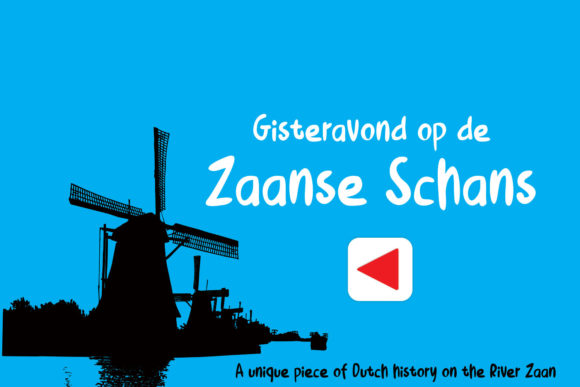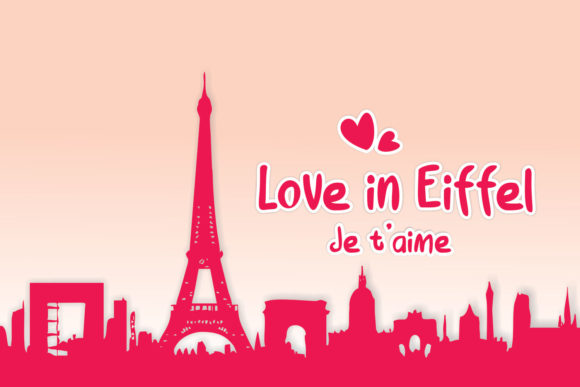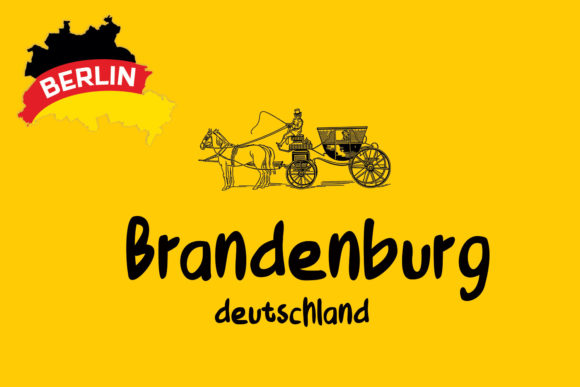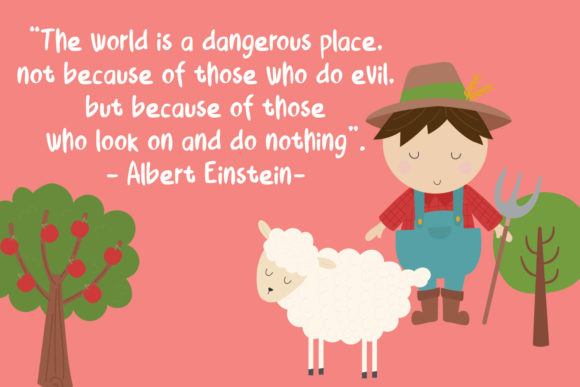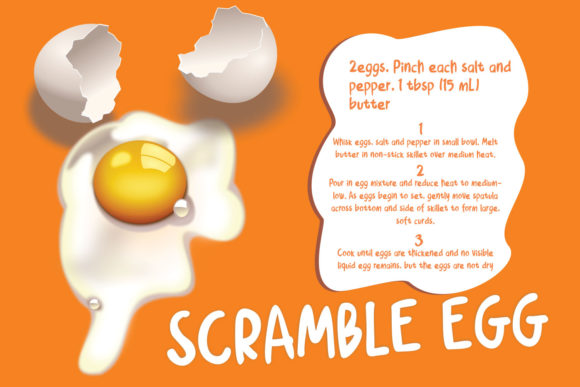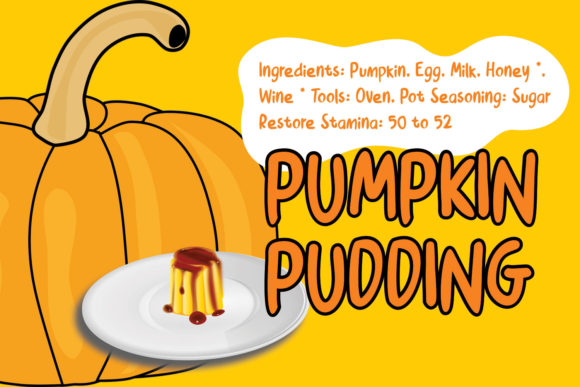
Introduction to Chicken Soup Font
Do you remember the moment when you finally found the perfect font to elevate your DIY project? The one that brought your creative vision to life and made you feel like a master designer? For many of us, that moment is a special one, and we cherish the feeling of excitement and pride that comes with it.
That’s exactly what the Chicken Soup Font is all about – bringing joy and creativity to your projects. This simple and cheerful display font is a game-changer for designers, and we’re excited to share it with you. With its cute soup-themed vectors, you’ll be able to add a unique touch to your designs and make them stand out from the crowd.
Whether you’re working on a free download project or a high-quality design resource, the Chicken Soup Font is the perfect addition to your toolkit. Its transparent background makes it easy to use, and its high-quality design ensures that your projects will look amazing.
Key Features of Chicken Soup Font
- High-quality design: This font is designed to provide a professional and high-quality look to your design.
- High-resolution design: The font is designed at a high resolution (300 DPI), making it perfect for printing and large-scale designs.
- Unique characteristics: The Chicken Soup Font features a unique and playful design, making it perfect for creative projects that require a touch of personality.
Honest Review: Chicken Soup Font
I recently had the chance to work with the Chicken Soup Font and I must say, I was quite impressed. As a designer, I’m always on the lookout for high-quality design resources to elevate my creative projects.
Here are some things that work well with this font: ✨ Easy to download and install, thanks to its free download option, making it a great resource for designers on a budget. ✨ The font has a clear and legible design, making it perfect for body text and titles. ✨ It comes in a variety of weights and styles, giving me the flexibility to choose the perfect look for my project. ✨ The transparent background option is a nice touch, allowing me to easily integrate the font into my designs.
However, I did encounter a few limitations: ⚠️ The font doesn’t come with a complete character set, which can be a problem for designers who need to use special characters. ⚠️ The font doesn’t work well with very small text sizes, which can be a challenge for designers who need to create complex layouts.
Overall, I’m quite happy with the Chicken Soup Font. It’s a great addition to my design resource library and I’ve already used it in several projects. While it’s not perfect, its strengths outweigh its limitations and I would definitely recommend it to fellow designers.
The Chicken Soup Font is a high-quality, free download design resource ideal for creative projects. Its transparent background makes it versatile for various design applications.
Getting the Most Out of the Chicken Soup Font
To maximize the font’s potential:
- Experiment with different font sizes and colors.
- Combine with other design elements, such as images and graphics.
- Use it for various design projects, from logos to infographics.
The Chicken Soup Font is suitable for:
- Food and beverage branding.
- Health and wellness marketing.
- Children’s educational materials.